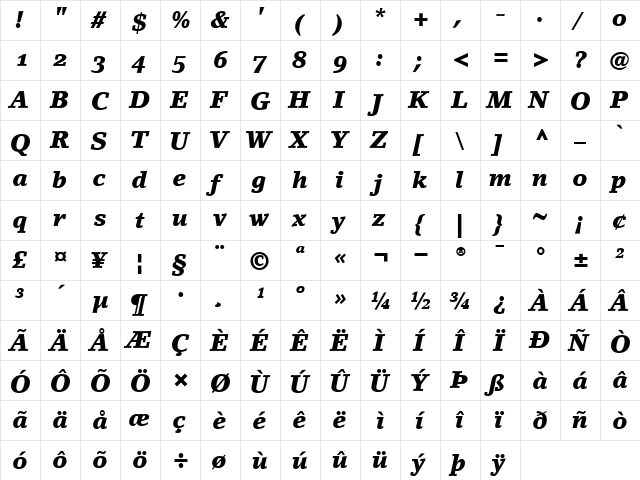
LinoLetterOldstyleFigures-Black BlackItalic Font Preview
LinoLetterOldstyleFigures-Black BlackItalic
Design Context for LinoLetterOldstyleFigures-Black Typeface
LinoLetterOldstyleFigures-Black carries the refined structure of traditional serif typography, with bracketed terminals and considered proportions that communicate credibility and craft. The slanted form adds forward momentum and visual energy.
Pro Tip: Use LinoLetterOldstyleFigures-Black for editorial body copy and considered headline work. Pair with a neutral sans for UI elements or captions to create a classic hierarchy.